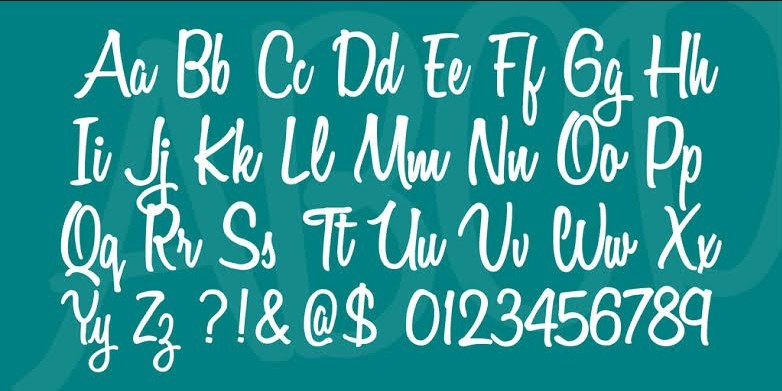
Variane Script Font
Variane Script Font is an emellie, and fab felt hand-lettered typeface with feature and private touch. It comes with stylish and feminine fashion signage, branding, brand, invitation, greeting playing cards, t-shirt layout, and so on.
The choppy letters supply this routen font of its individual. Perfect for while you want to add a private touch without the problem of scanning in your handwriting.